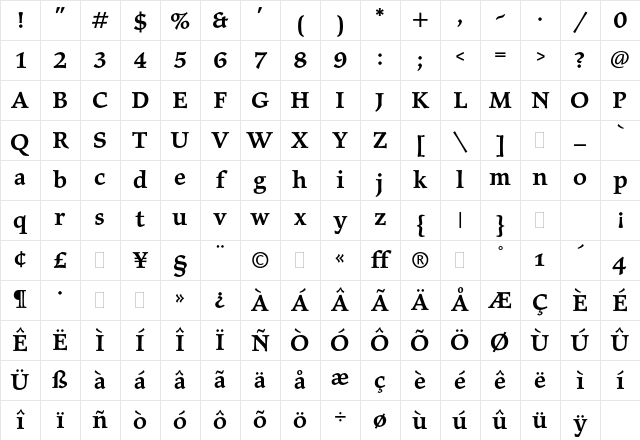
Complete Elysium Medium Plain glyph index. Displaying only characters natively supported by Elysium Medium Plain font.
Elysium Medium is a composed and adaptable typeface that performs quietly and consistently across a wide range of design contexts.